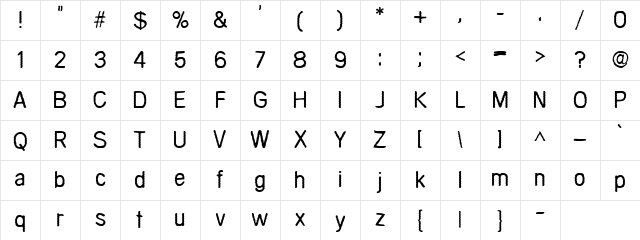
Comaprison Regular
Design Context for Comaprison
Comaprison is a composed and adaptable typeface that performs quietly and consistently across a wide range of design contexts.